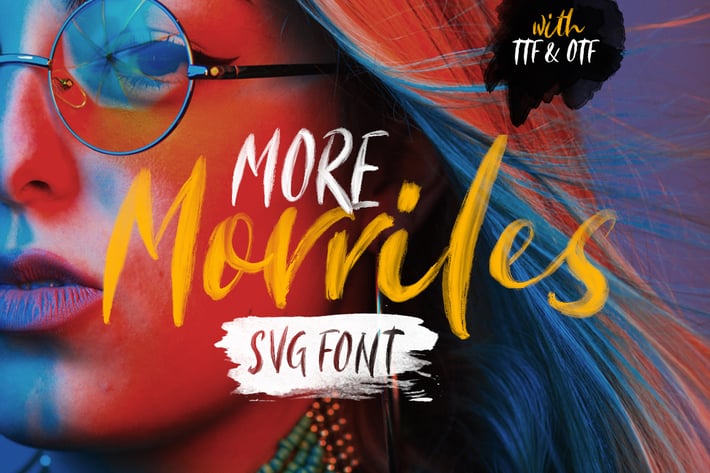
Morriles - SVG Font
Morriles is handmade font that contains the newest font format, SVG and two another format. You can use these fonts for various purposes such as making realistic handwriting, for promotions, or other purposes that will make your design more real as handmade.